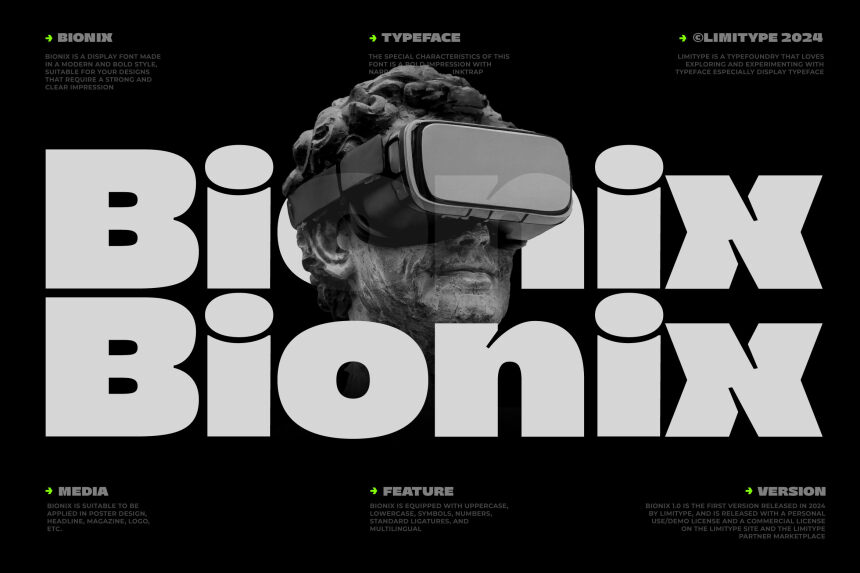
Bionix Fat emerges as a robust and confident member of the Bionix family, designed by the creative duo Muhammad Muammar and Ridwan Fadilah of Limitype Foundry. This sans serif marvel boasts a bold and voluminous flair, making it an ideal choice for when your design demands attention. Its expanded characters exude strength and stability, perfect for creating impactful headlines or assertive branding materials.
The font's aesthetic appeal lies in its ability to marry simplicity with presence. The clean lines ensure readability while its substantial body commands visual space with ease. In the realm of design, Bionix Fat finds its place where assertiveness is key: think billboards, poster titles, logos, and any other medium that benefits from an authoritative voice without sacrificing elegance.
Bionix Fat — Schriftpräsentation
Bionix By. Limitype Foundry
Muhammad Muammar x Ridwan Fadilah